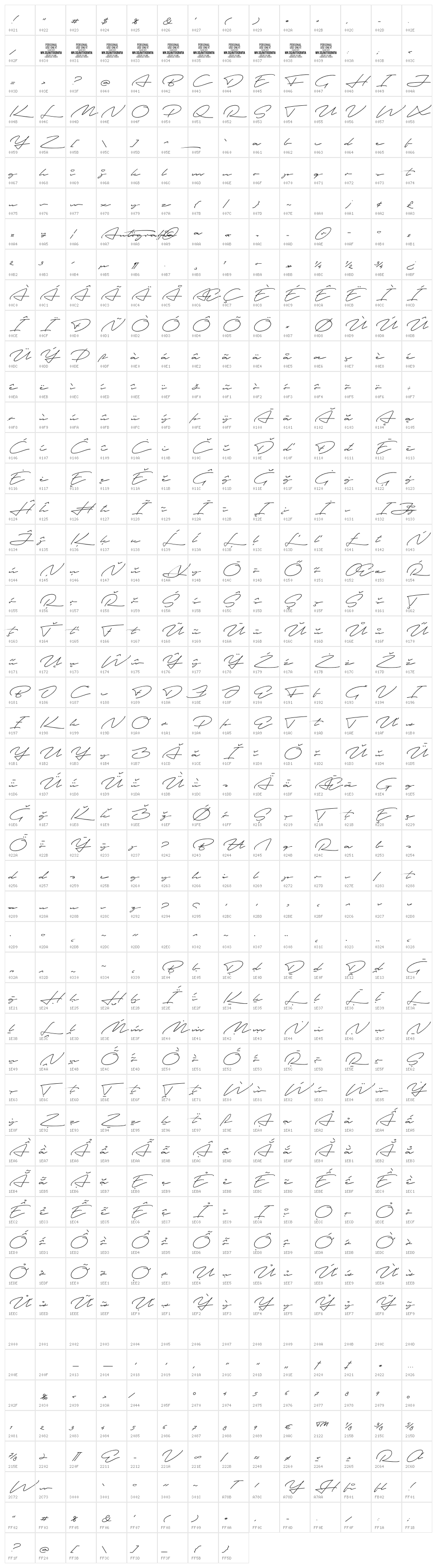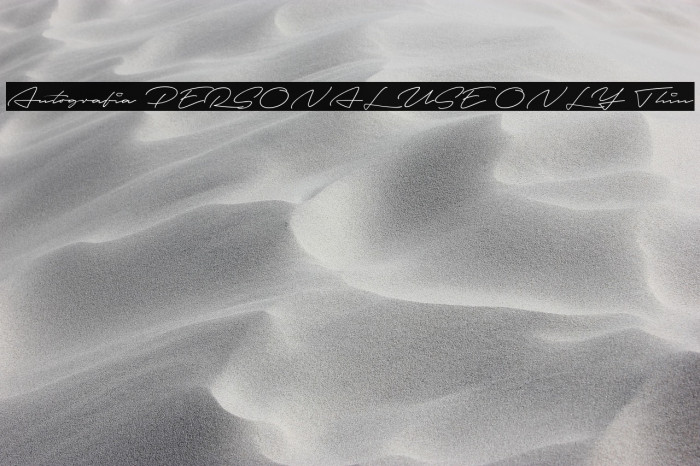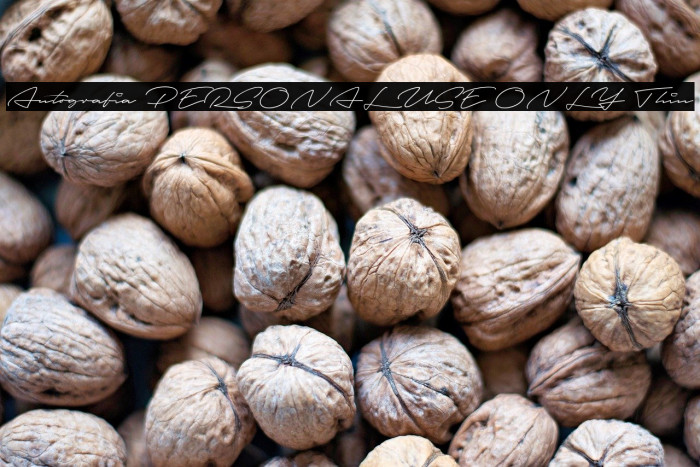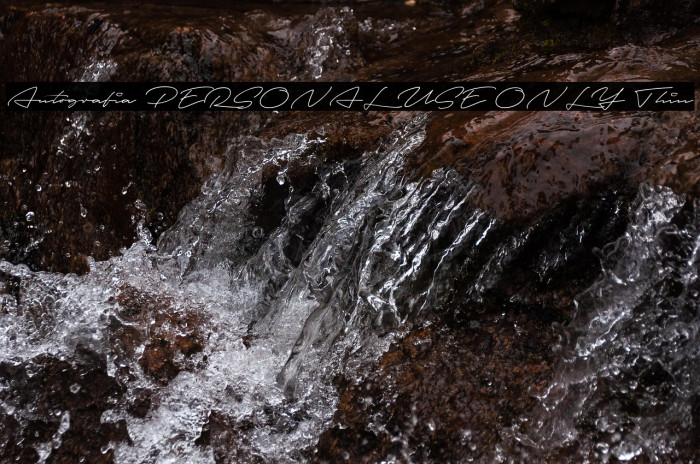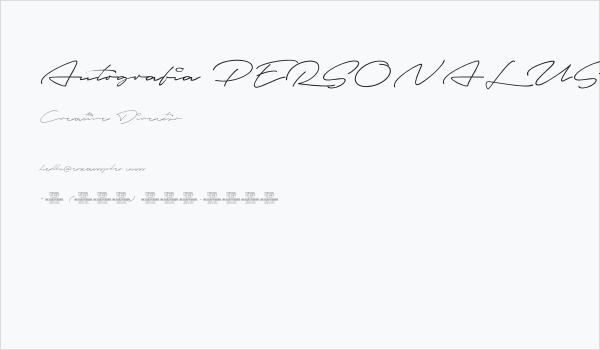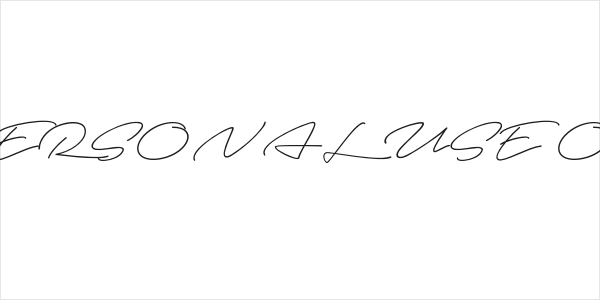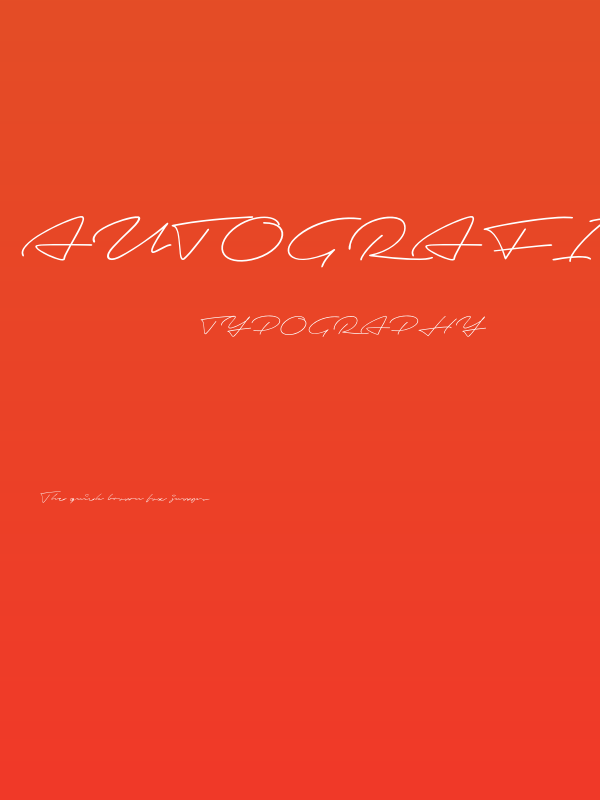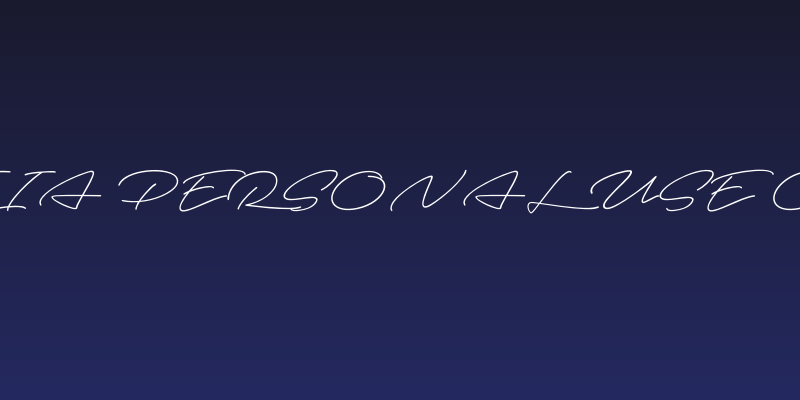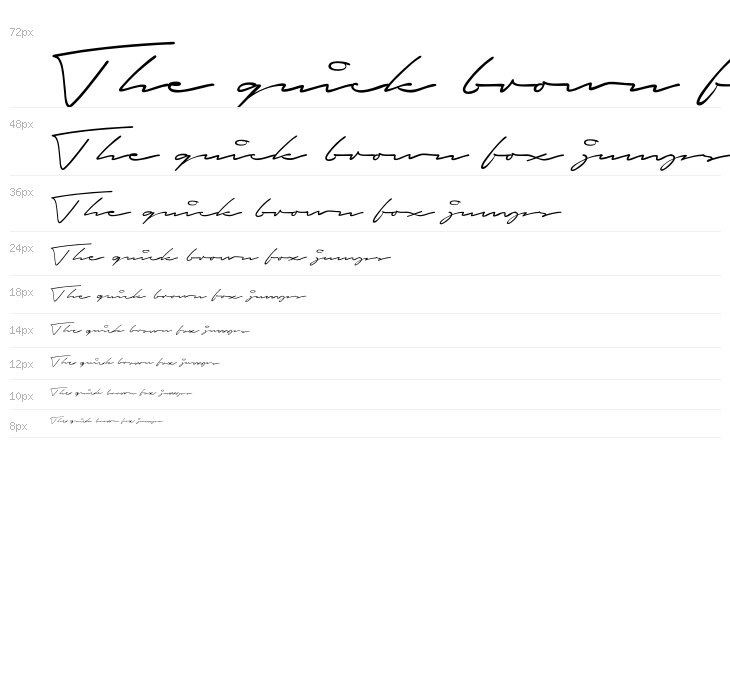
Autografia PERSONAL USE ONLY Thin Font
Autografia PERSONAL USE ONLY Thin Description
This elegant script font features a fluid, handwritten style with thin, graceful strokes. The characters are connected, creating a seamless flow that mimics natural handwriting. The uppercase letters are slightly more elaborate, while the lowercase letters maintain a consistent, smooth appearance. The font includes a full set of uppercase and lowercase letters, numbers, and a variety of special characters, making it versatile for various design needs. Its delicate lines and cursive style give it a sophisticated and personal touch, perfect for projects that require a handwritten aesthetic.
| Overall Style | Elegant, Handwritten |
| Proposed Projects | Ideal for wedding invitations, personal branding, greeting cards, and elegant stationery. |